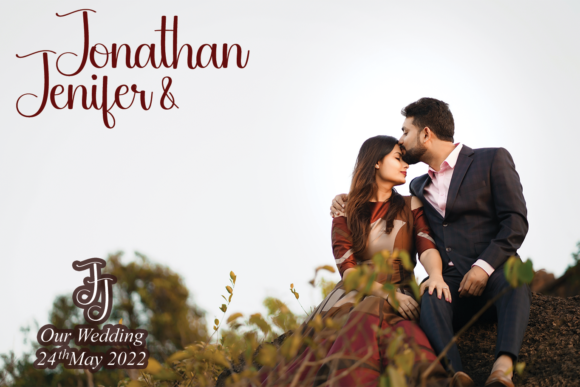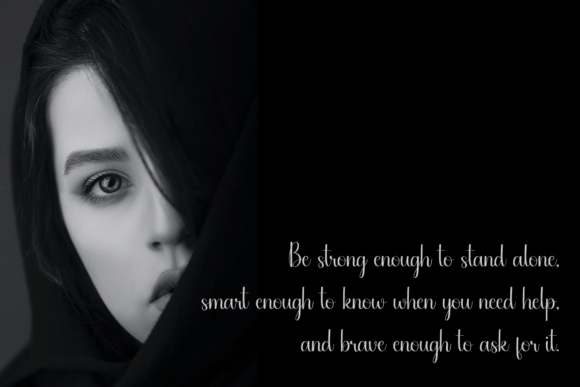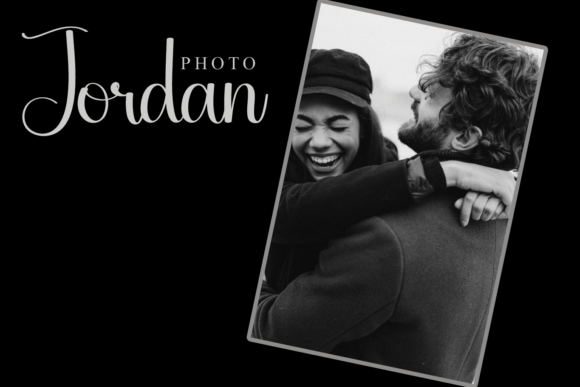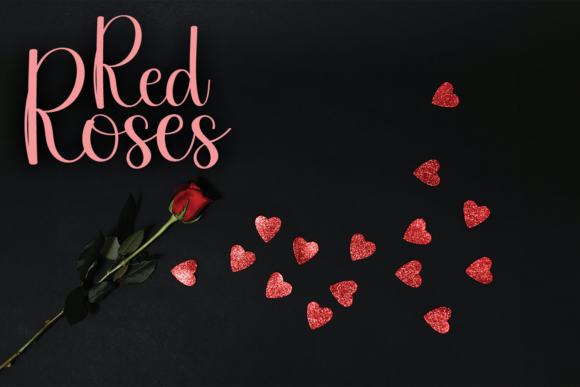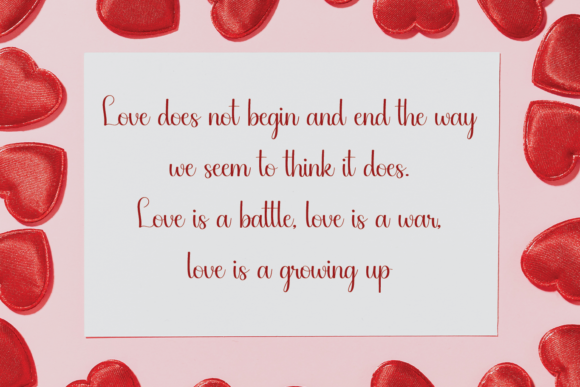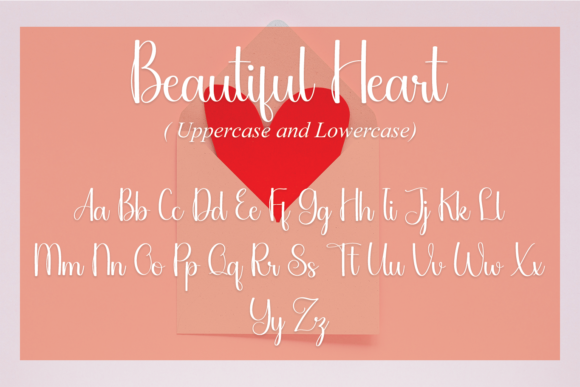
The Perfect Font for Your Creative Masterpiece
Have you ever sat down with a blank page or screen, and suddenly, the perfect idea strikes you? The words start flowing, and your imagination runs wild. This is the moment when creativity knows no bounds, and the right tool can make all the difference. For designers, the right font can elevate their design from ordinary to extraordinary. And, for those looking for a timeless and beautiful handwritten font, the Beautiful Heart Font is the perfect choice.
This lovely font is ideal for creating eye-catching logos, branding, and quotes. Its unique and beautiful touch will make your design come alive, leaving a lasting impression on your audience. As a valuable asset for designers, the Beautiful Heart Font offers a level of sophistication and elegance that is hard to find in other fonts.
Key Features of Beautiful Heart Font
- Unique Characteristic: The font features a beautiful, hand-drawn design with a heart motif, adding a touch of elegance and romance.
- Font Style: Available in Regular and Bold styles, allowing for flexibility in design applications.
Beautiful Heart Font Review
I recently had the chance to work with the “Beautiful Heart Font”, and I must say it’s a unique addition to any design project. ✨ One of the things that stood out to me was its versatility – it works beautifully for both digital and print applications. The font’s playful, cursive script makes it perfect for crafting a sense of whimsy and romance in your designs.
- ✨ Beautiful for digital and print applications
- ✨ Perfect for adding a touch of whimsy and romance
- ✨ Elegant, cursive script
However, I did encounter a few limitations while using this font. ⚠️ One of the main concerns is its readability at smaller font sizes. While it looks beautiful at larger sizes, it can become difficult to read when scaled down. Additionally, the font’s complexity may make it challenging to pair with other fonts, which could limit its usability in certain design projects.
- ⚠️ Limited readability at smaller font sizes
- ⚠️ May be challenging to pair with other fonts
- ⚠️ Can become difficult to read when scaled down
Overall, I think the “Beautiful Heart Font” is a great choice for designers looking to add a touch of elegance and whimsy to their projects. While it may have some limitations, its unique features make it a valuable addition to any design toolkit.
Some tips for using the Beautiful Heart Font effectively include:
– Using it for titles and headings to add a touch of elegance.
– Combining it with other fonts for a unique and creative look.
– Adjusting the font size and color to match your brand or design aesthetic.
The Beautiful Heart Font is commonly used for:
– Wedding invitations and stationery.
– Baby shower invitations and decorations.
– Valentine’s Day cards and gifts.
– Any design project that requires a touch of romance and elegance.